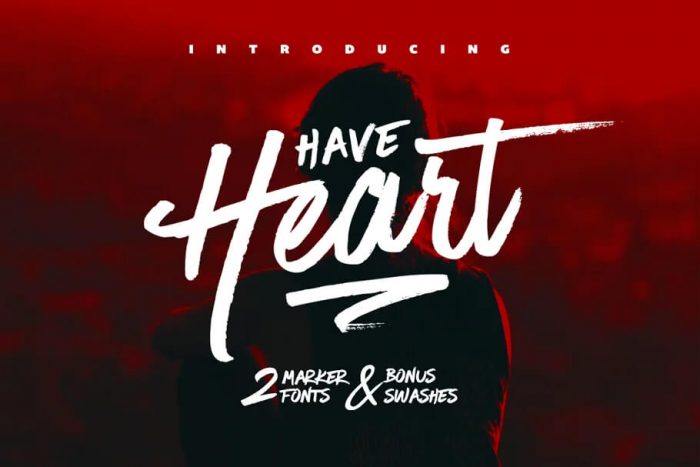
Have Heart Font Duo
Have Heart is a set of 2 hand-made marker pen fonts, designed to combine perfectly and allow you to create stunning hand-lettering quickly and easily. Also included is a set of 12 bonus swashes, ideal for giving your text that final touch of finesse!
Have Heart One Comes with upper and lowercase characters, large set of punctuation glyphs, numerals, and supports international languages. Stylistic alternates for several key lower case characters are also available, accessible in the Adobe Illustrator Glyphs panel, or under Stylistic Alternates in the Adobe Photoshop OpenType menu.
Have Heart Two Comes with upper-case only characters, basic punctuation, numerals, and supports international languages.
Have Heart Swash Includes 12 hand-made swashes.